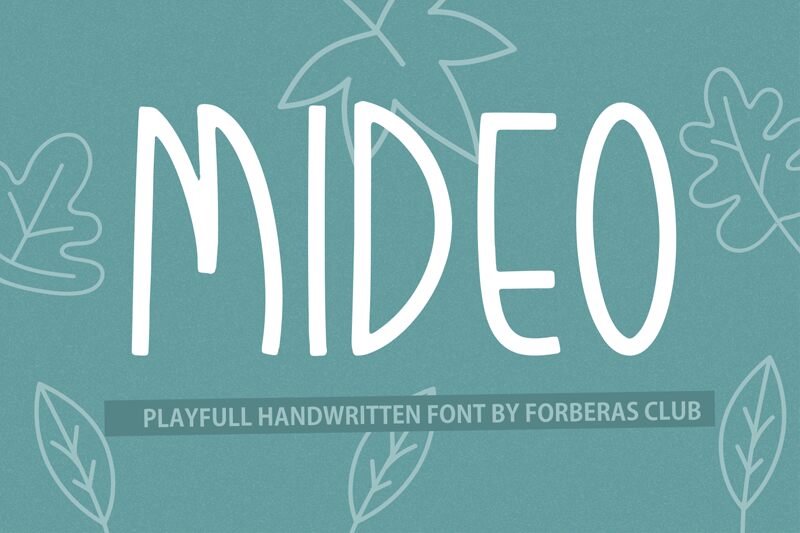
Mideo, a captivating handwritten font crafted by Forberas Club, exudes a delightful sense of personality and charm. Its condensed width lends an air of refinement, while the organic, free-flowing strokes evoke a warm, inviting aesthetic. The font's distinctive character shines through in its playful ligatures and subtle variations, creating a visually engaging and expressive typographic experience.
This versatile font lends itself well to a diverse range of applications, from branding and packaging design to editorial layouts and social media content. Its unique personality makes it an excellent choice for projects that require a touch of handcrafted authenticity, allowing designers to infuse their work with a sense of approachability and personal touch.